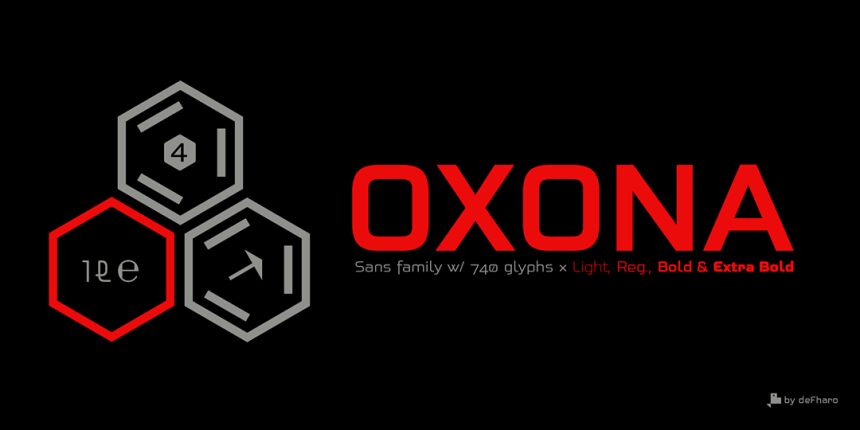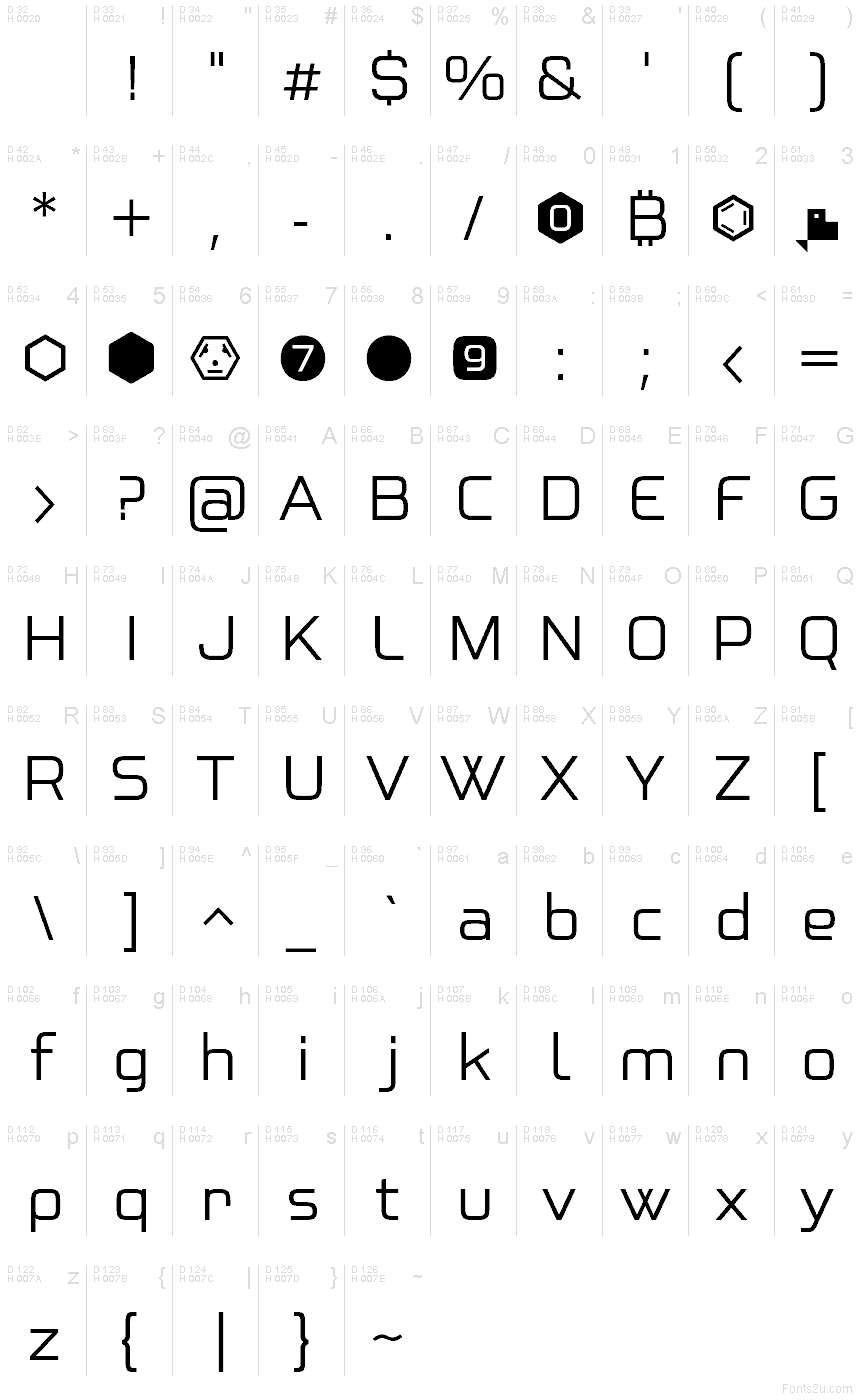
Oxona Regular
Oxona font is a modern sans serif by Fernando Haro. Its futuristic, minimalistic style captures attention through clean lines and geometric influence that convey sleekness in visual design. Oxona is the only font you need to get yourself a professional look at first sight.
Use Oxona in branding, posters, mobile apps, websites, books covers, cards, logos, product packaging design and much more!
Oxona is a futuristic sans serif with 4 weights, meticulously calculated square proportions that aims to redefine readability and visual impact.
Every stroke, every curve and every angle has been polished to achieve a perfect balance between absolute clarity and aesthetic boldness due to its cleanliness, modernity and functionality, the geometric structure and its subtle optical adjustments that generate great harmony and make it a unique typeface, as rational as it is expressive.